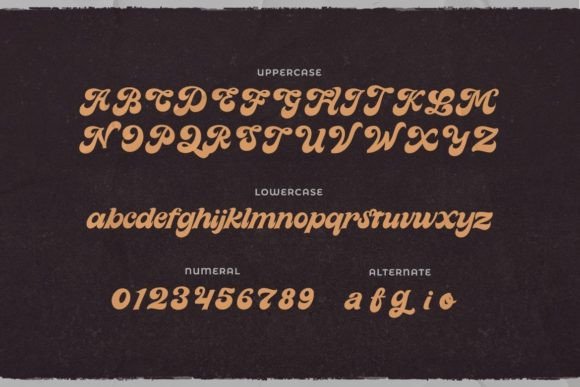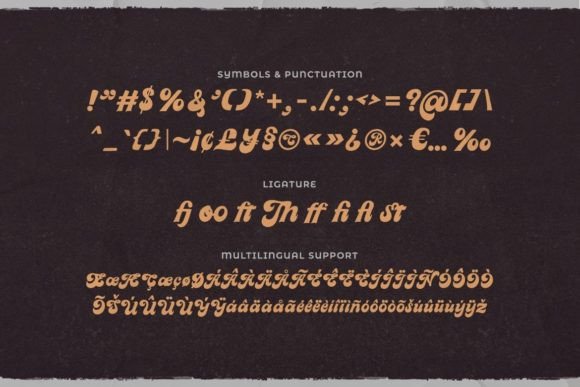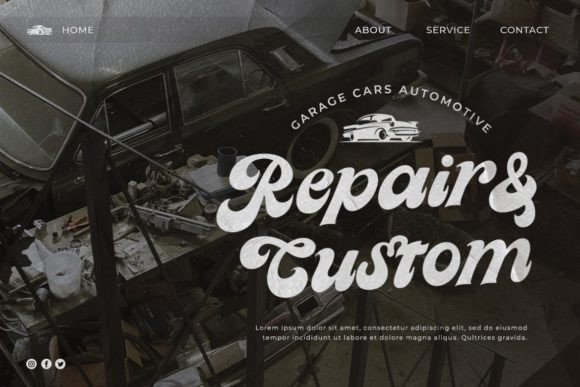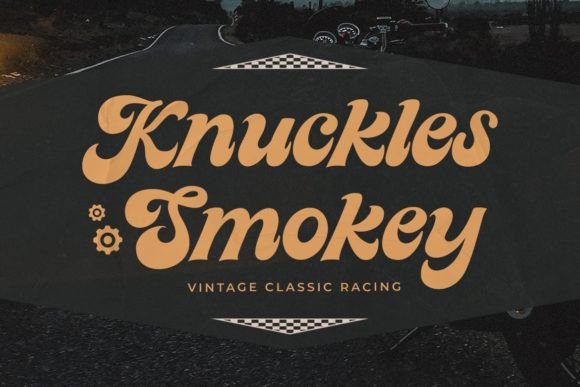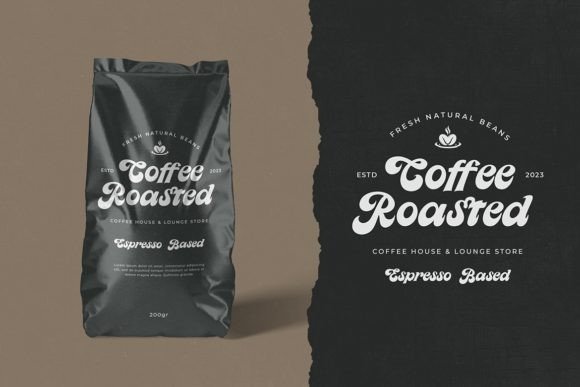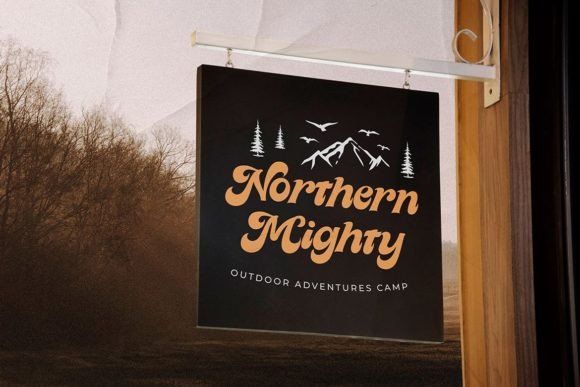
Introduction to East Garage Font
East Garage is a retro display font that will bring you back to a 90s feel.
East Garage feels playfully nostalgic and delivers an incredible vintage aesthetic Use this display font to add that special retro touch to any design idea you can think of.